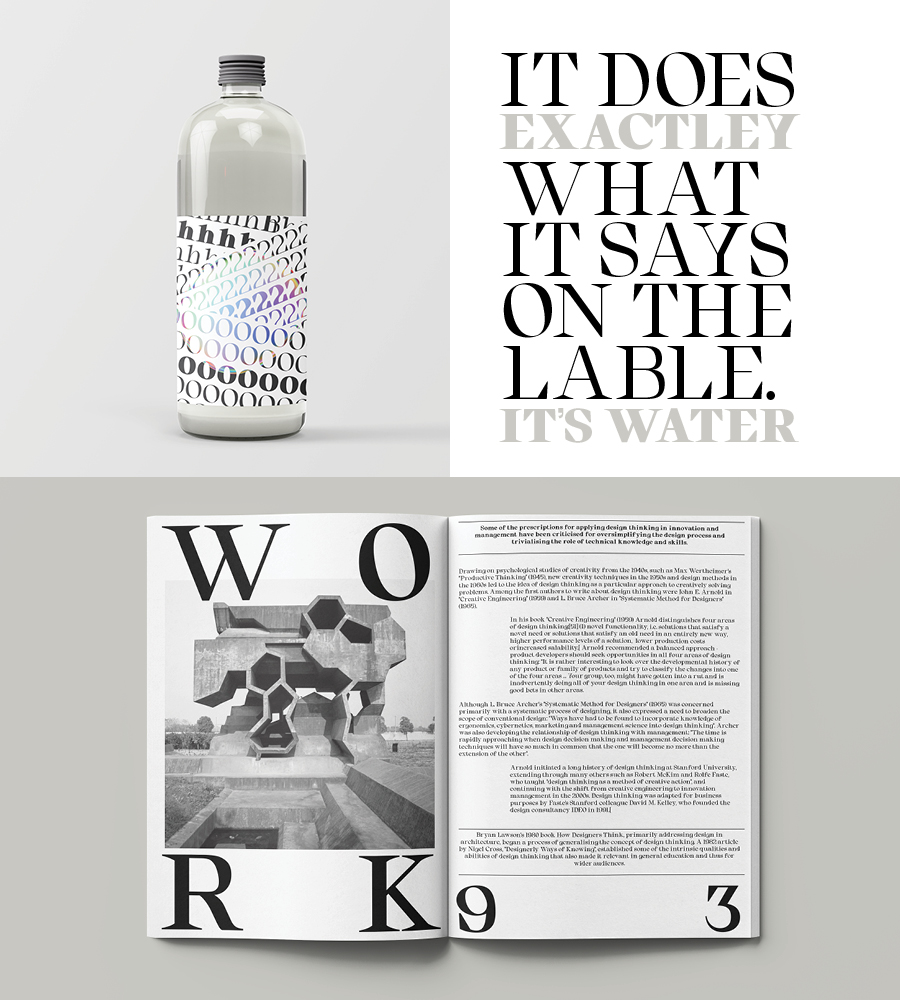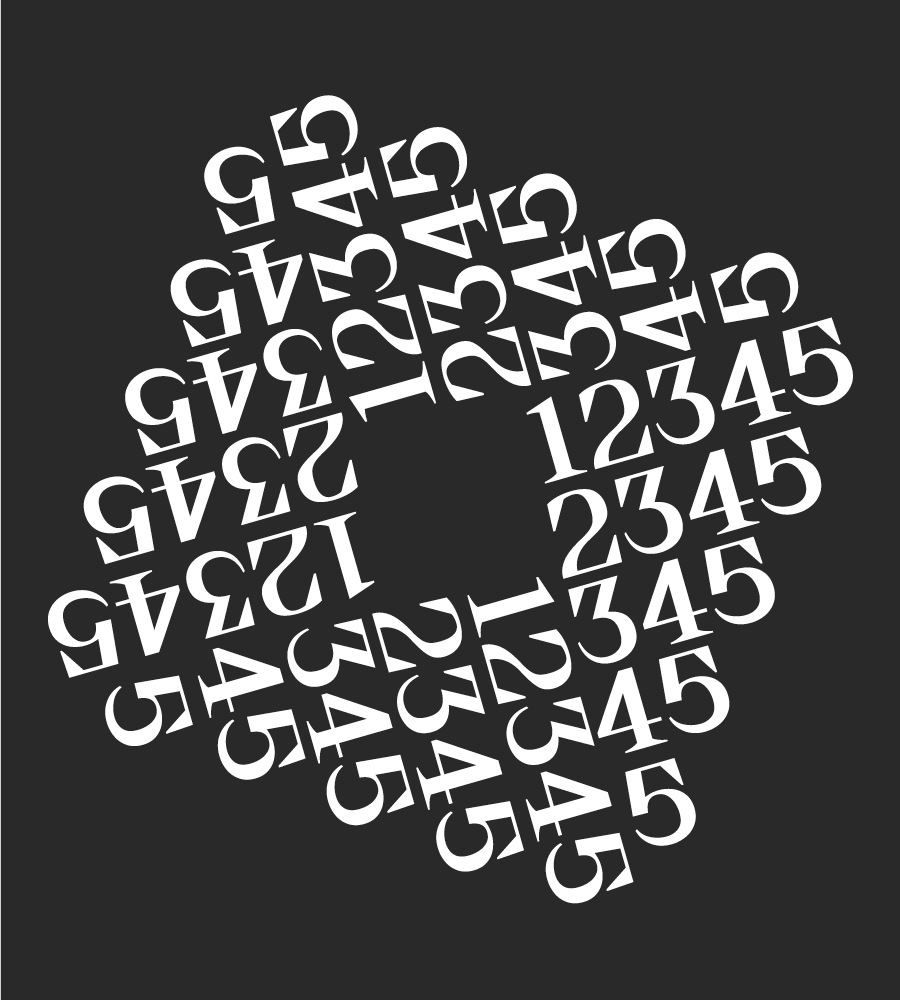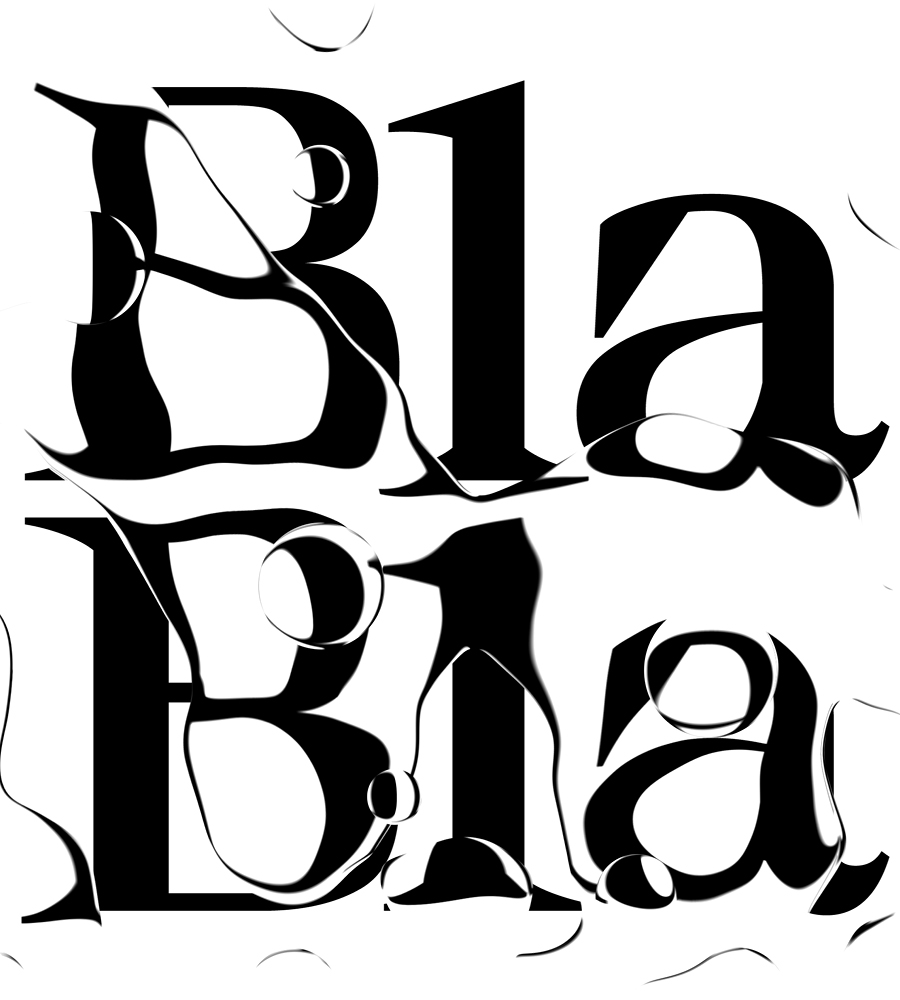
Bla Bla is a contemporary serif typeface inspired by brutalist forms, featuring large open counters, and curved, round forms, creating a modern & elegant glyph set. The organic curves with gentle repetitions create powerful and harmonious forms. Designed to be a stylish modern family it is perfect for communication and branding projects.
Bla Bla supports up to 63 different languages such as English, French, Turkish, Kurdish (Latin), Azerbaijani (Latin), Romanian, Hungarian, Kazakh (Latin), Swedish, Belarusian (Latin), Finnish, Latvian, Irish, Estonian, and Basque in Latin and other scripts.